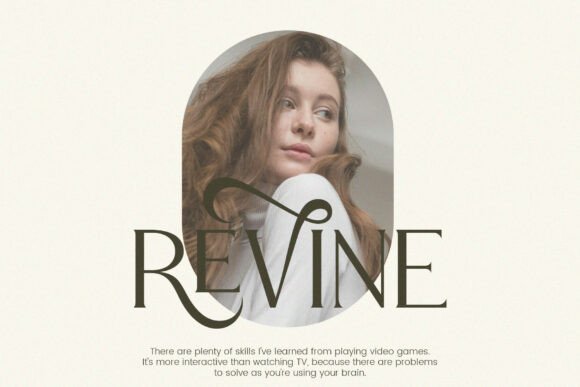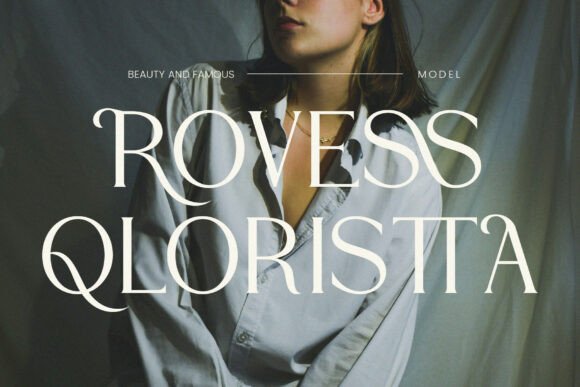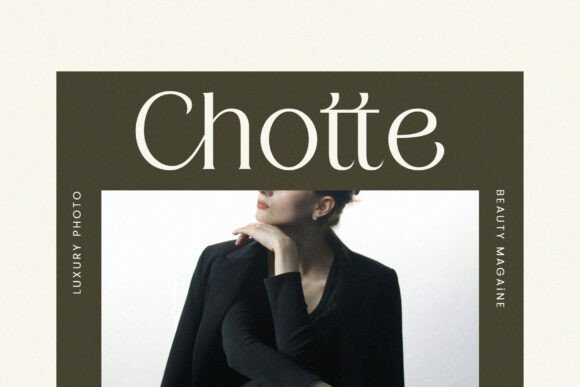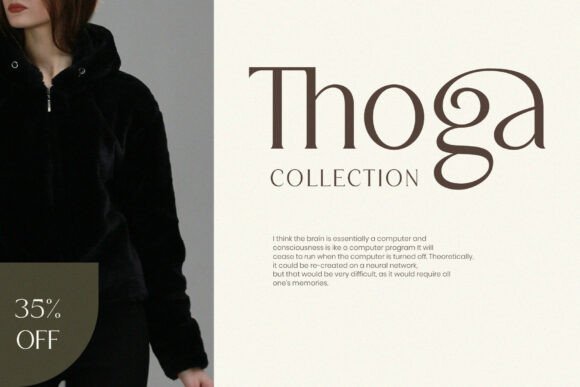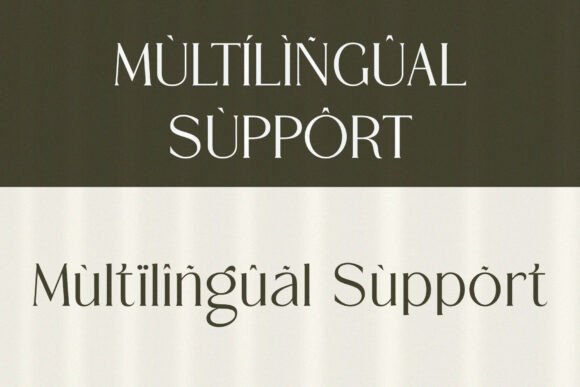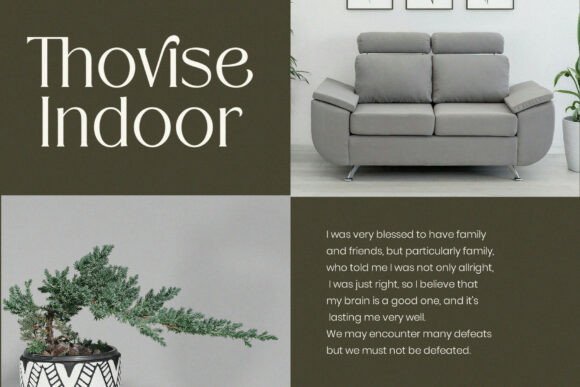
Introduction to Rogatte Font
Exude timeless luxury with Rogatte, an elegant display serif that captures a “refined-and-poetic” soul.
This font features classic serif letterforms elevated by rhythmic, sweeping ligatures and delicate, curling swashes that add a bespoke, custom-lettered feel With its sophisticated structural balance and airy grace, Rogatte is the premier choice for independent wedding branding, luxury editorial fashion spreads, upscale cosmetic packaging, and high-impact “timeless-elegance” social media headers.
Key Features of Rogatte Font